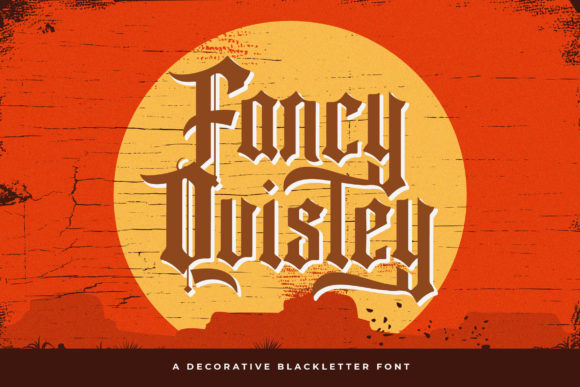
Welcome to the world of Fancy Quisley, a captivating blackletter font family that evokes the charm of vintage signage and the allure of retro-inspired designs. Crafted with meticulous attention to detail by the renowned StringLabs, Fancy Quisley is more than just a collection of letters; it's an artistic expression that ignites creativity and transforms your designs into timeless masterpieces.
Step into a realm where nostalgia meets modernity, where the intricate lines and sweeping curves of Fancy Quisley weave a tale of elegance and sophistication. Inspired by the rich history of hand-painted signs and the timeless appeal of vintage labels, this font family is a treasure trove of visual delight.
With Fancy Quisley, you have the power to make a statement that resonates. Create posters that capture the essence of a bygone era, logos that exude a classic charm, and labels that transport your customers to a world of yesteryear. Let your packaging designs speak volumes with a touch of vintage flair, leaving an unforgettable impression on everyone who encounters them.
Embark on a creative journey with Fancy Quisley and discover the infinite possibilities it holds. Whether you're a seasoned designer or just starting out, this font family will elevate your work to new heights, turning your designs into works of art that captivate and inspire.